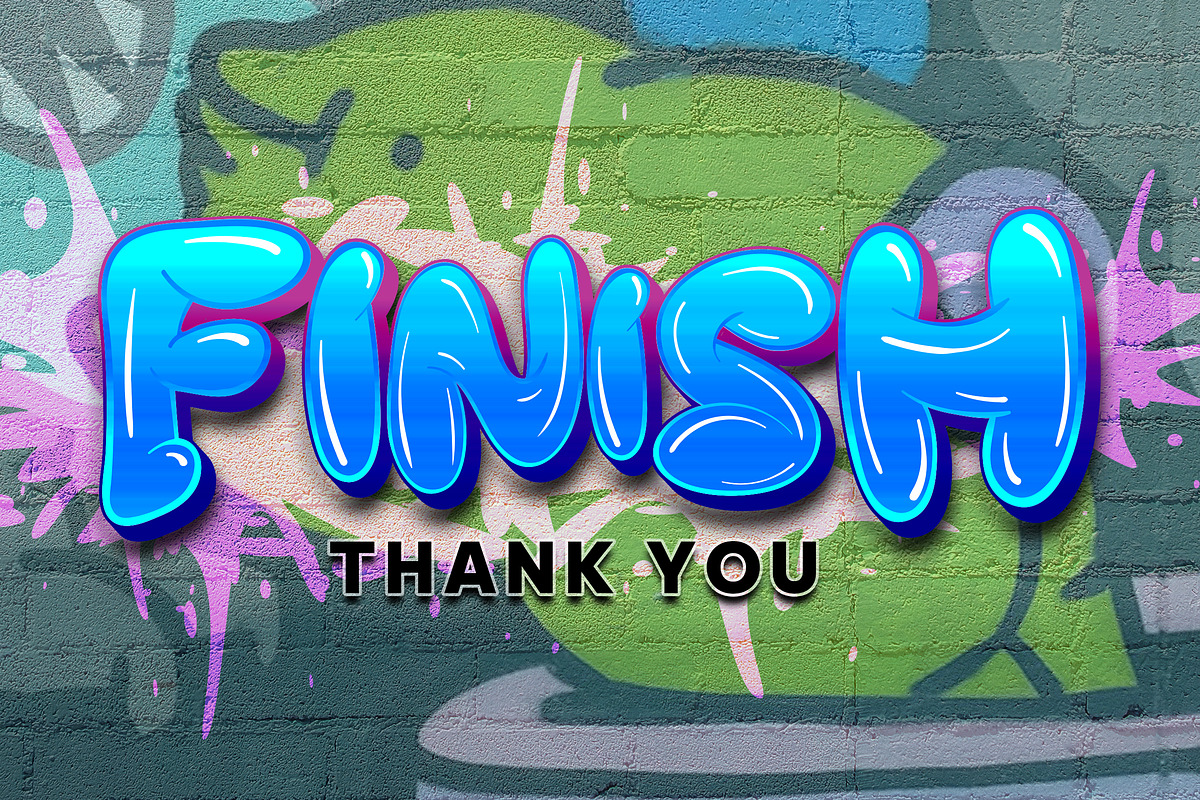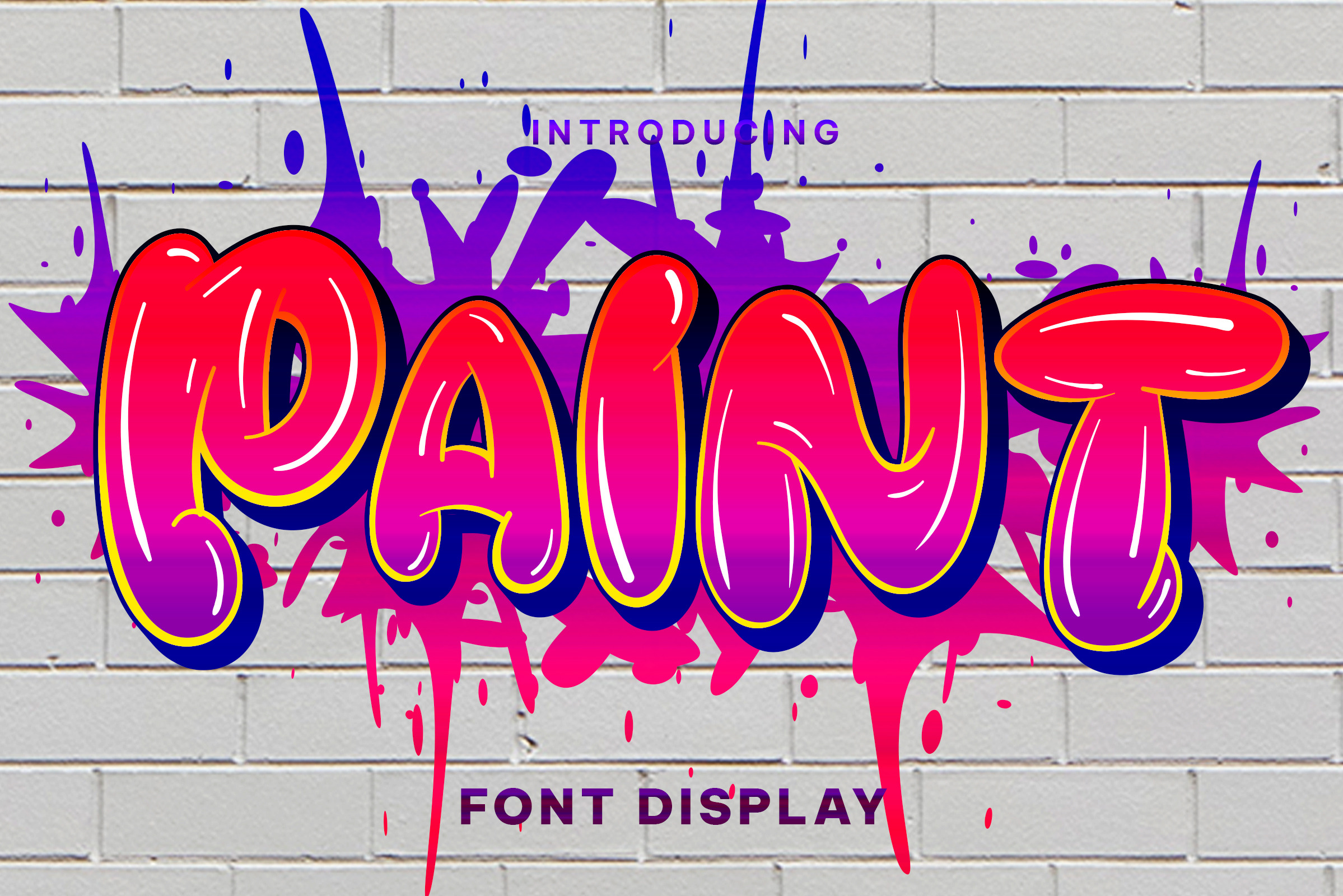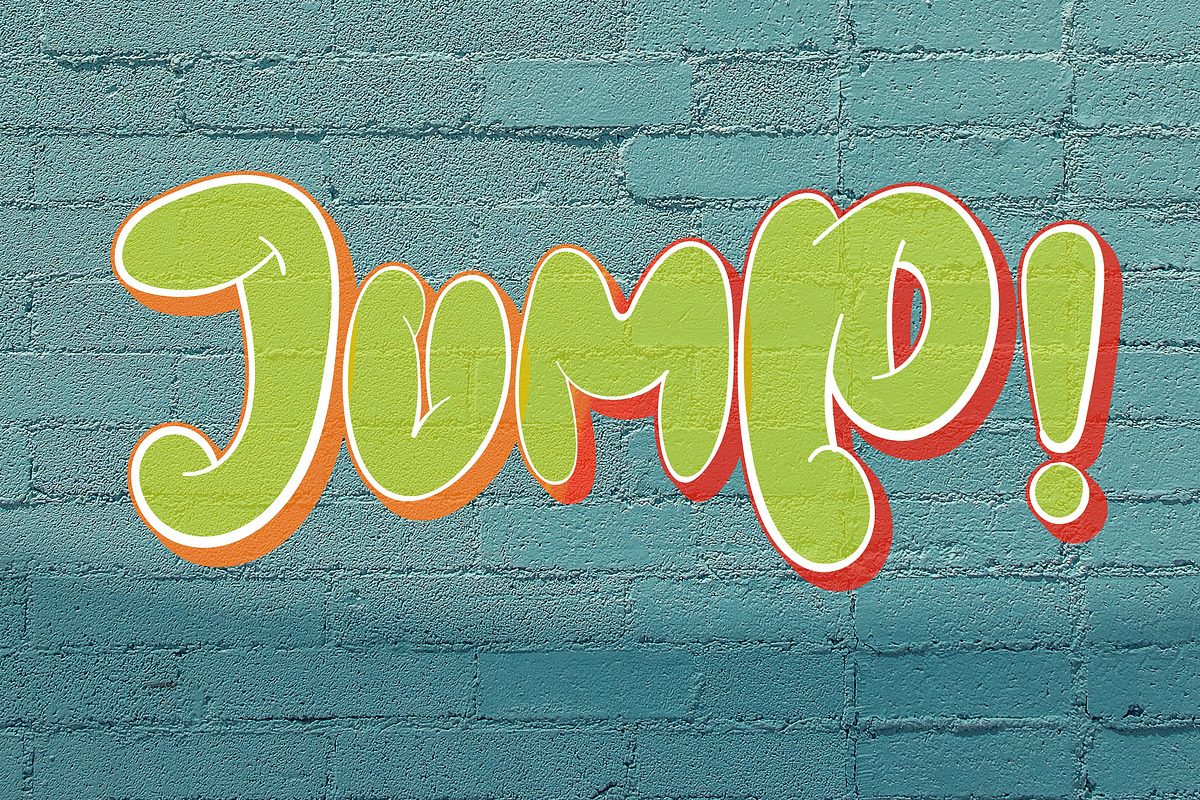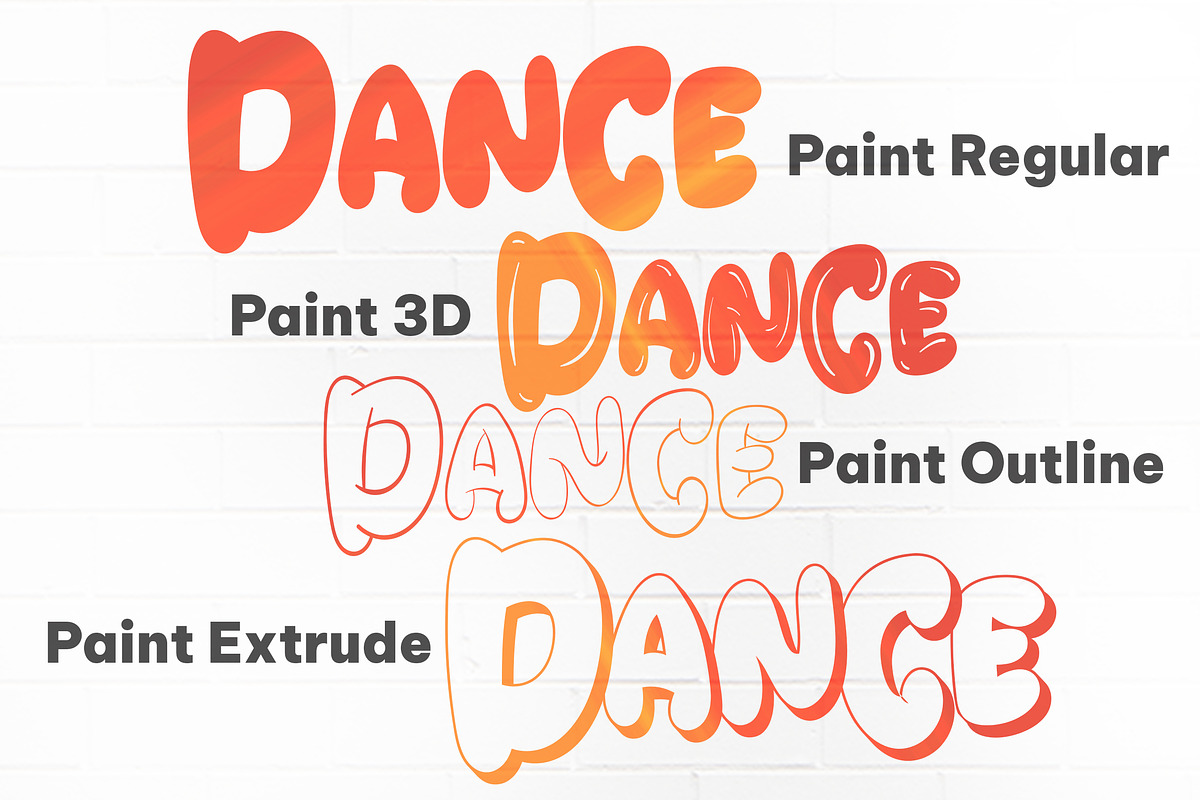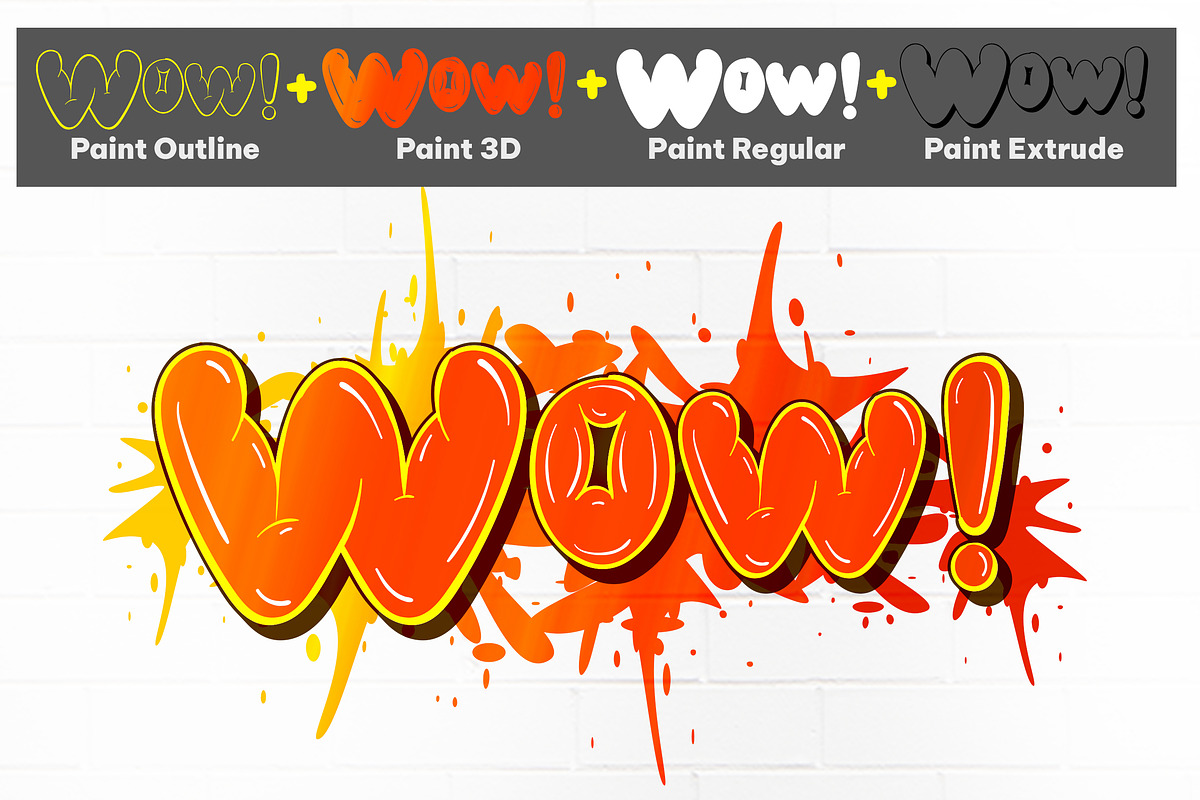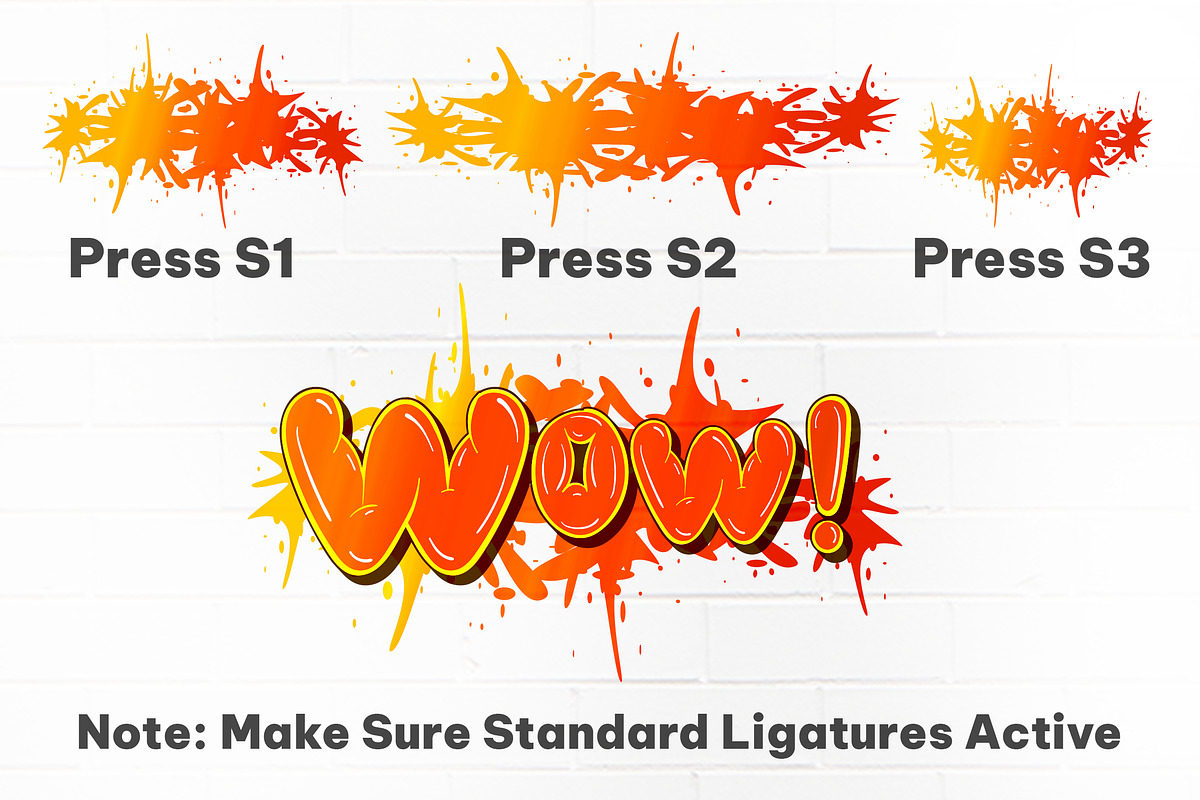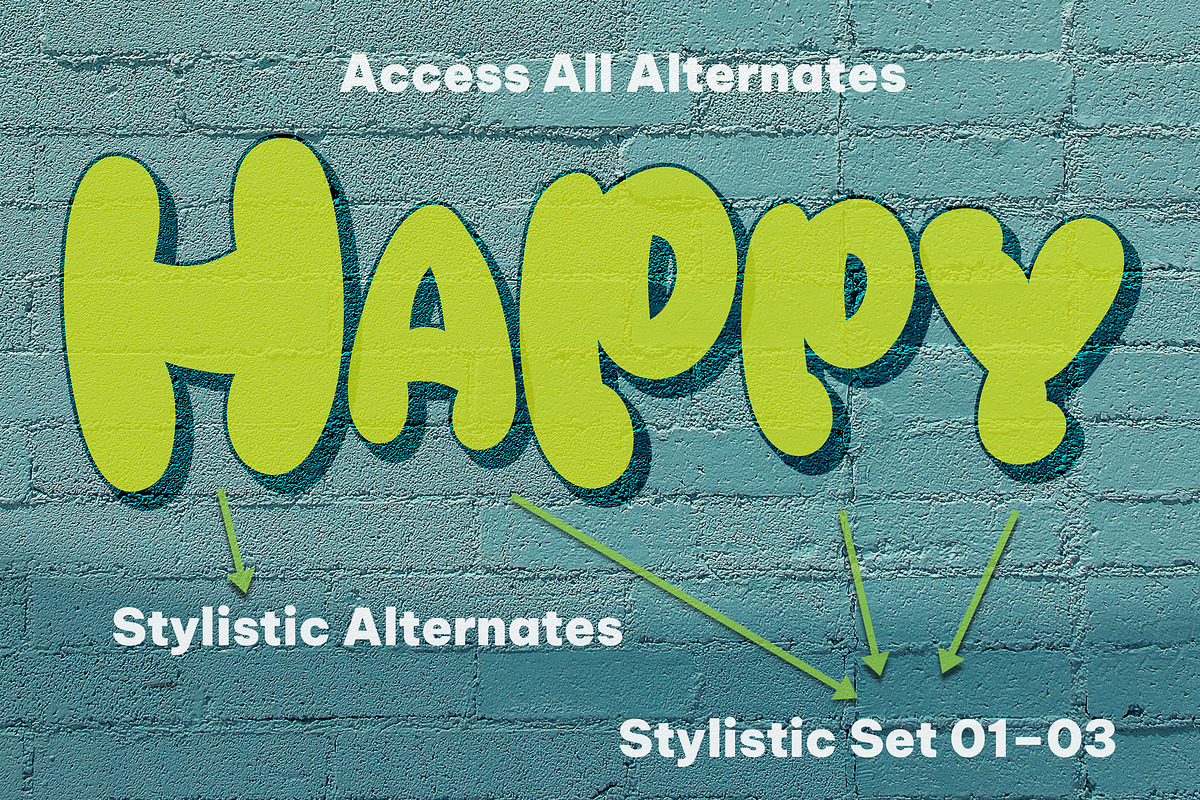
Paint - Graffiti Display Font
Paint is a bold display font that captures the rebellious spirit of street art. Its thick, uppercase letters feature jagged edges and unique embellishments that evoke the look of spray-painted graffiti. This font is perfect for creating eye-catching titles and headlines for urban-inspired designs, music posters, and other projects that require an edgy and daring style. The font’s bold and unapologetic personality is sure to make a statement.